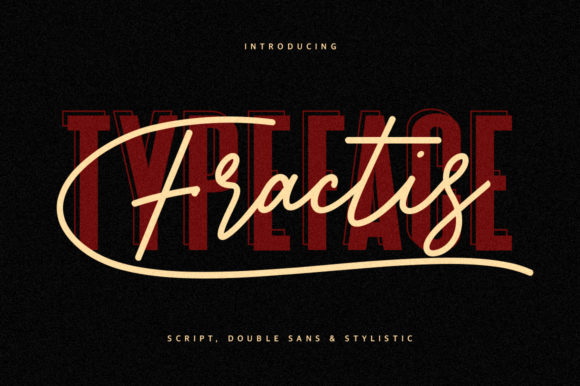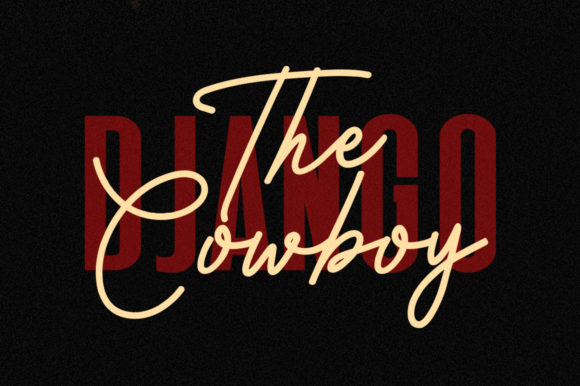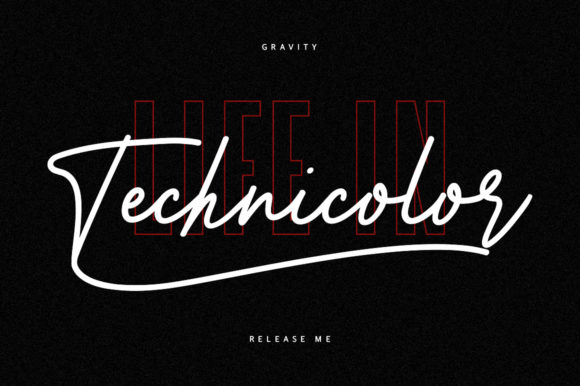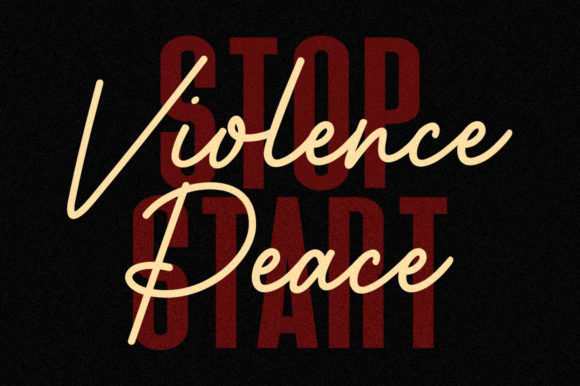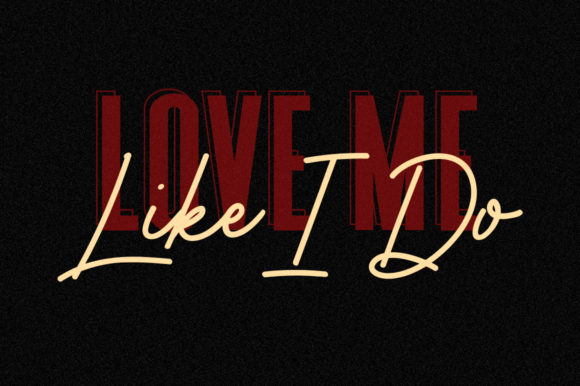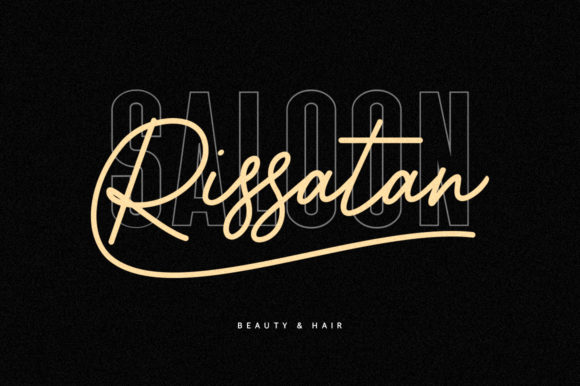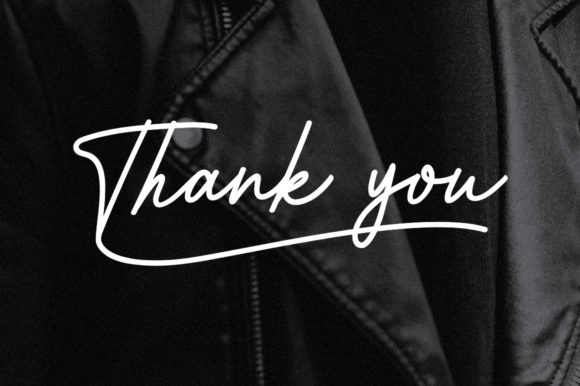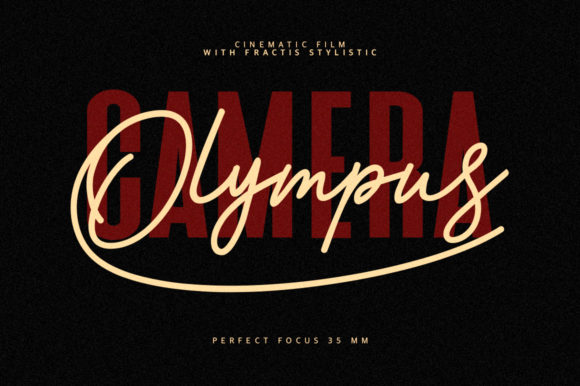
Fractis Font
About Fractis Font
Fractis is a bold and versatile duo font (sans serif and script). This font fits a wide pool of designs, elevating them to the highest levels. Add it to your favorite creative ideas and notice how it makes them stand out!